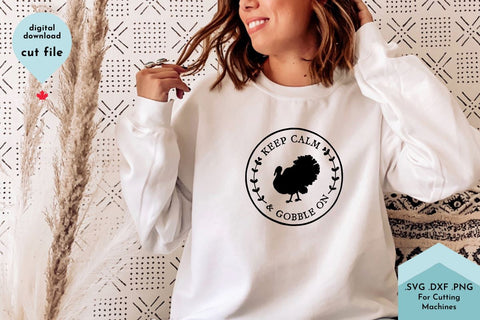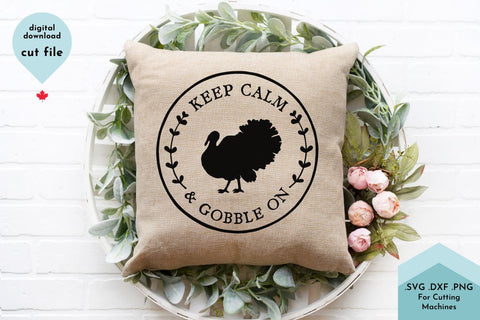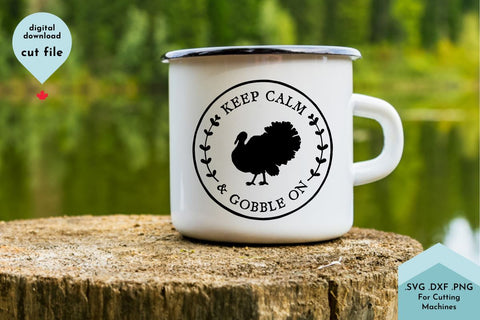
Funny Fall SVG - Keep Calm and Gobble On Hand Lettered Hand Drawn
Keep Calm and Gobble On - designed for cutting machines!
Funny Fall SVG - Keep Calm and Gobble On Hand Lettered Hand Drawn